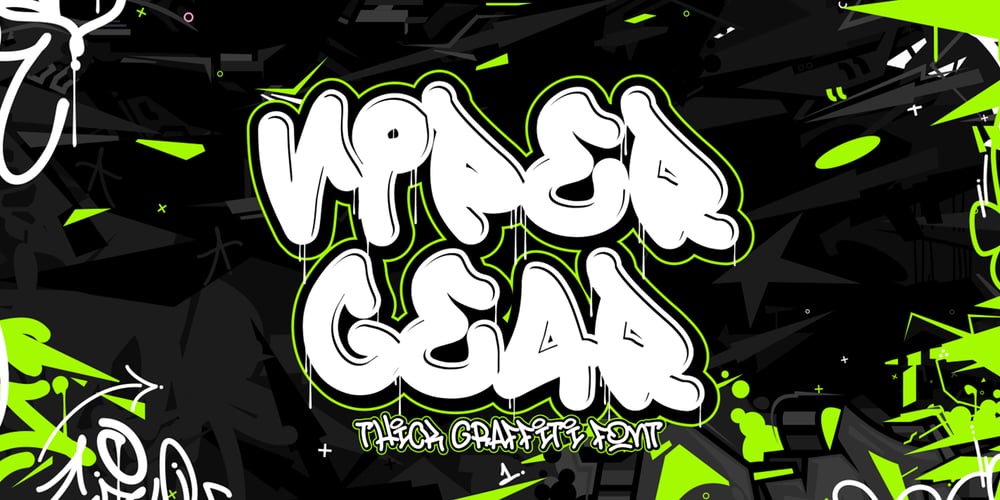
Viper Gear Drip
Viper Gear Drip font
Viper Gear Drip Font Family was designed by Sipanji and published by Sipanji21. Viper Gear Drip contains 2 styles and family package options. Unleash the gritty spirit of the streets with the audacious “Viper Gear”. This graffiti-style font underscores the raw, nonconformist beauty of urban aesthetics, marrying bold strokes with edgy design elements. “Viper Gear” stands bold and unique with its dual-style character: a pure form and a daring dripping version that brings authenticity to your designs by infusing the dynamic fluidity of genuine street art. This characteristic spillover lends an energetic rhythm to your layouts, transporting viewers straight to the heart of the city’s pulse. Whether it’s city-centric posters, edgy street fashion labels or any creative endeavor seeking a typographic style that’s audacious and impactful, “Viper Gear” speaks volumes. Immerse your work in the vibrant dynamism of city life with “Viper Gear”, a font that captures the relentless energy of urban landscapes.